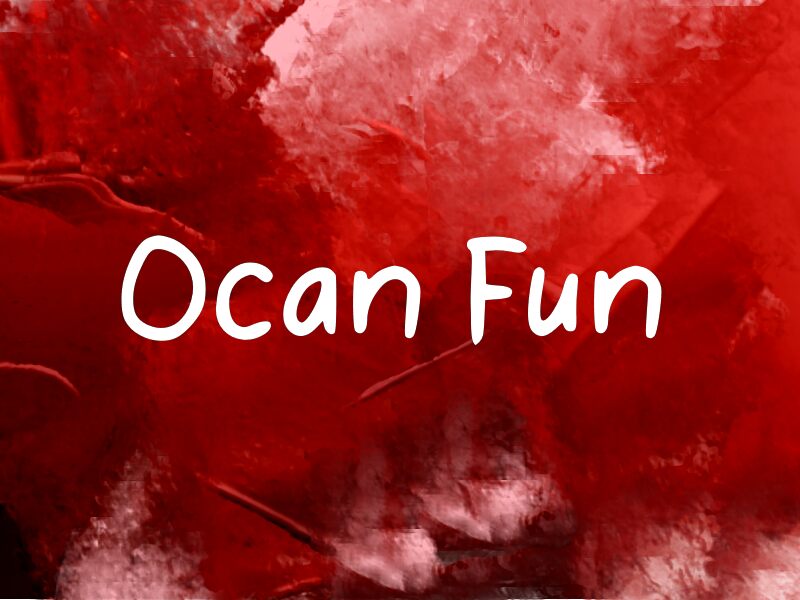
Ocan Fun
Ocan Fun font by wep is a free handwritten typeface with a chunky, marker-pen feel that looks like it was scribbled in one happy, confident motion. Rounded strokes, soft corners, and easy rhythm give it a friendly, unselfconscious charm—casual without getting messy, playful without turning chaotic. It reads clearly even at smaller sizes, while still carrying that bold, inky, hand-drawn personality when scaled up.
Using Ocan Fun, you get a go-to choice for kids’ book covers, classroom posters, birthday invitations, playful logos, social media graphics, and product packaging that needs a warm human touch. The wide, even letterforms keep layouts feeling airy and approachable, especially when you give this free font a bit of extra line spacing. Pair it with a clean geometric sans for body copy to balance its lively handwritten energy.